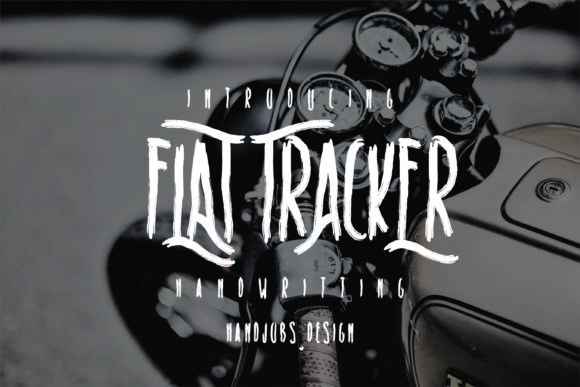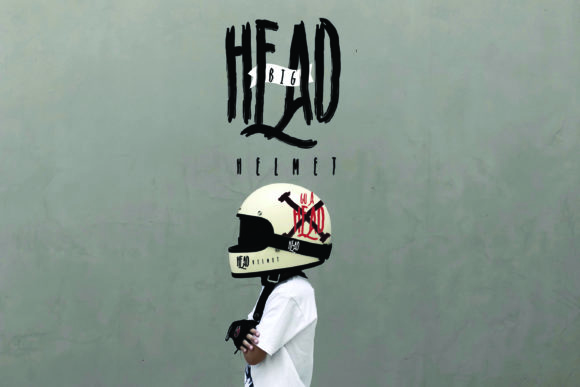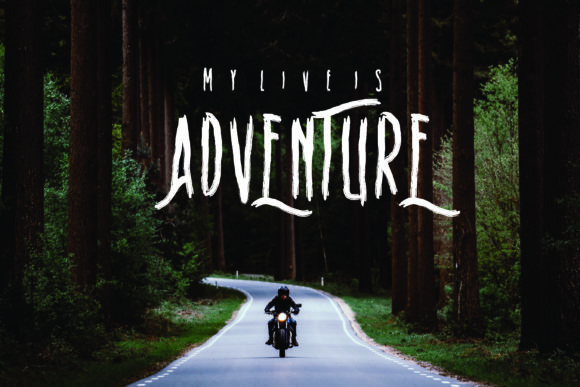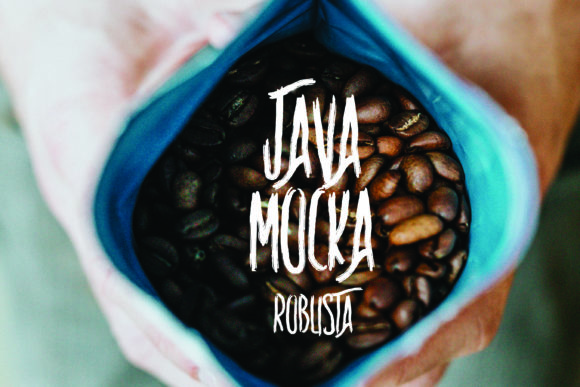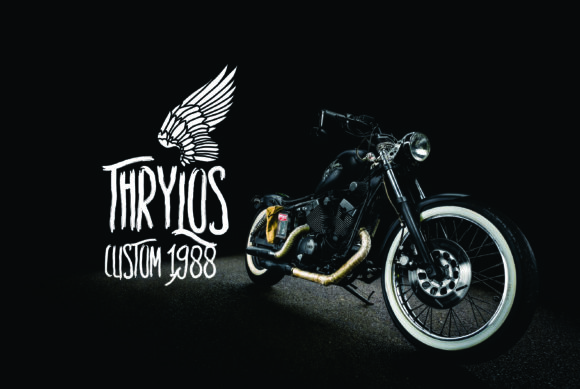
HomeScript FontsFlat Tracker Font Script Fonts Flat Tracker Font FacebookXPinterestWhatsApp Flat Tracker Font Poster 2 Flat Tracker Font Poster 3 Flat Tracker Font Poster 4 Flat Tracker Font Poster 5 About Flat Tracker Font The Flat Tracker is a motorbike inspired font. It’s suitable for layouts, lines, logos, offers and much more! DOWNLOAD NOW People also explored Fox Cookie Golden Estella Font Gritluef Font Astine Sophiya Font Examine Font Brown Bella Canvas 3001 T Shirt Mockup Faith Font Mimi’s Hand Connected Professional Edition Font 341 0 TagsFlat Tracker Font Previous articleRashford FontNext articleCarlo Melow Duo Font LEAVE A REPLY Cancel reply Comment: Please enter your comment! Name:* Please enter your name here Email:* You have entered an incorrect email address! Please enter your email address here Website: Save my name, email, and website in this browser for the next time I comment. Personal Use Free Vinograd Personal Use Free Read more about this font Peristiwa Font Personal Use Free Read more about this font Adrenaline Personal Use Free Read more about this font Short Message Personal Use Free Read more about this font BLOG Top 10 Handwritten Fonts That Elevate Your Designs Top 10 Handwritten Fonts That Will Elevate Your Designs Handwritten fonts bring a warm, personal touch to every creative project. Whether you're designing logos, invitations,... The 10 Best Handwriting Fonts to Add Personality to Your Designs Free Fonts Risk: Why Free Fonts Can Be Dangerous for Designers Elegant Wedding Invitation Fonts – Handwritten & Script Fonts